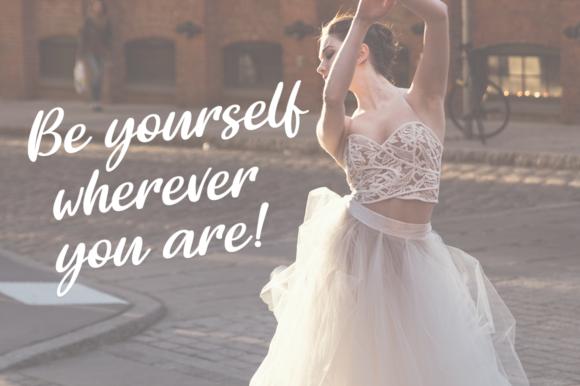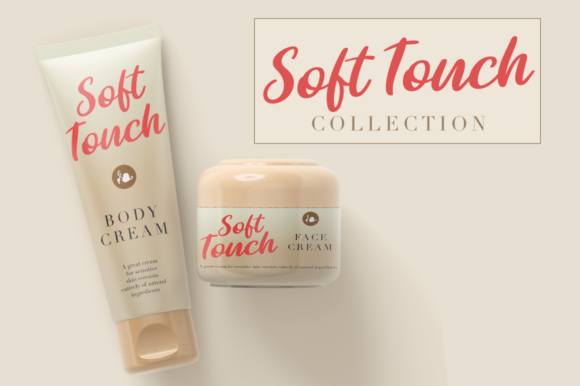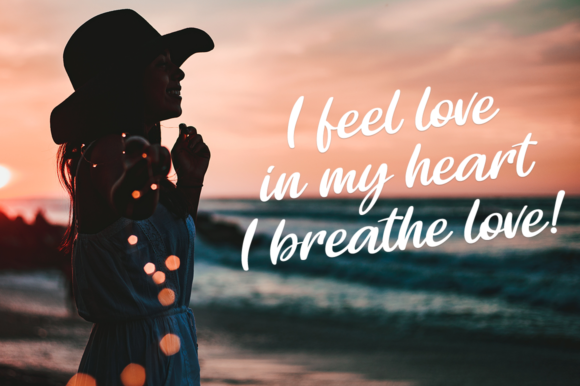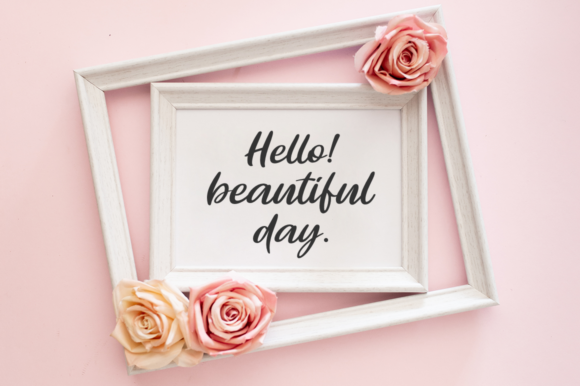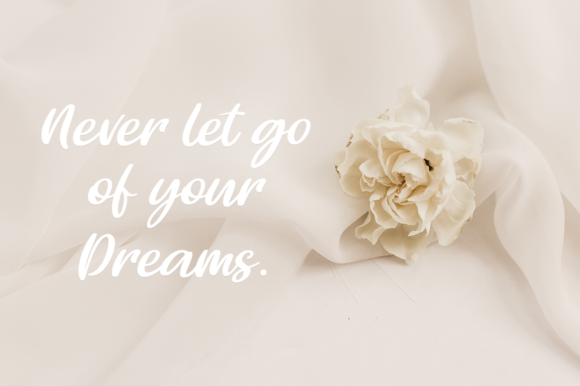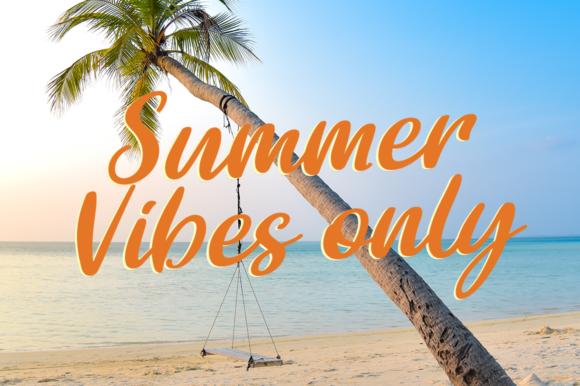
Brisbane Font: Elevate Your Design with a Personal Touch
Brisbane is a stunning and carefully crafted handwritten font with a unique feel. It will add a personal charm to any design project! In the world of typography, a well-chosen font can make all the difference in creating a lasting impression. For designers and crafters looking to infuse their work with a touch of personality, Brisbane Font is an excellent choice. In this article, we’ll explore the features and benefits of Brisbane Font, and how it can elevate your design projects.
The Story Behind Brisbane Font
Brisbane Font is a beautifully designed handwritten font that exudes a sense of warmth and approachability. Its unique feel is perfect for designers who want to add a personal touch to their work. The font’s creator has carefully crafted each letter to ensure that it is not only aesthetically pleasing but also highly legible. Whether you’re working on a branding project, a craft project, or simply want to add some personality to your digital designs, Brisbane Font is an excellent choice.
Key Features of Brisbane Font
- Unique Handwritten Style: Brisbane Font boasts a distinctive handwritten style that sets it apart from other fonts. Its carefully crafted letters are designed to evoke a sense of warmth and friendliness.
- Highly Legible: Despite its unique feel, Brisbane Font is highly legible, making it perfect for use in a variety of design projects, from headings and titles to body text.
- Versatile: Brisbane Font is incredibly versatile and can be used in a wide range of design projects, including branding, packaging, and digital designs.
- Easily Customizable: Brisbane Font is easy to customize, allowing you to adjust the font size, color, and style to suit your design needs.
Benefits of Using Brisbane Font
So, why choose Brisbane Font for your design projects? Here are just a few benefits of using this stunning handwritten font:
- Adds a Personal Touch: Brisbane Font adds a personal touch to any design project, making it perfect for designers who want to create a unique and memorable brand identity.
- Evokes Emotion: The warm and friendly feel of Brisbane Font evokes emotions and creates a connection with the viewer, making it perfect for use in branding and advertising projects.
- Stand Out from the Crowd: Brisbane Font is a unique and distinctive font that will help your design project stand out from the crowd.
Design Project Ideas Using Brisbane Font
Brisbane Font is incredibly versatile and can be used in a wide range of design projects. Here are a few ideas to get you started:
- Branding and Logo Design: Use Brisbane Font to create a unique and memorable brand identity that reflects your brand’s personality.
- Packaging Design: Add a personal touch to your packaging design with Brisbane Font, making your product stand out on store shelves.
- Digital Designs: Use Brisbane Font in your digital designs, such as social media graphics, blog posts, and website headers, to add a touch of personality and whimsy.
- Craft Projects: Brisbane Font is perfect for craft projects, such as handmade cards, gift tags, and scrapbooking.
In conclusion, Brisbane Font is a stunning and carefully crafted handwritten font that adds a personal charm to any design project. Its unique feel, high legibility, and versatility make it perfect for designers and crafters looking to infuse their work with a touch of personality. Whether you’re working on a branding project, a craft project, or simply want to add some personality to your digital designs, Brisbane Font is an excellent choice.